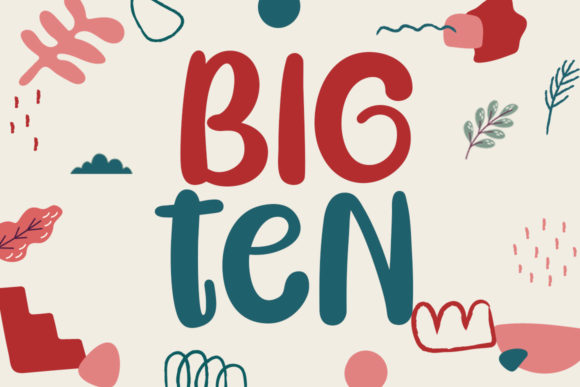
The Big Ten Font: A Fun and Friendly Display Font for Your Creative Projects
I’ll never forget the time I was working on a project for a client who needed a bold, eye-catching font to capture the essence of their brand. I had spent hours scouring the internet for the perfect font, but nothing seemed quite right. That was until I stumbled upon the Big Ten font. With its fun and friendly vibe, I knew I had found the one. In this article, I’ll share my experience with the Big Ten font, its features, and how to make the most of it in your creative projects.
A Personal Review of Big Ten
- ✨ Unique and playful design: Big Ten has a distinctive look that’s sure to make your projects stand out.
- ✅ Highly versatile: Whether you’re working on a logo, poster, or social media graphic, Big Ten can adapt to any topic or theme.
- 💡 Easy to read: Despite its bold and playful design, Big Ten remains surprisingly legible, even at smaller font sizes.
While Big Ten is an excellent font, it’s not without its quirks. For example:
- 🤔 Limited suitability for body text: Big Ten is primarily designed for display purposes, so it may not be the best choice for longer blocks of text.
- ⚠️ Some glyphs may not be suitable for professional or formal projects: Big Ten’s playful design may not be suitable for all types of projects, such as corporate branding or formal events.
The Backstory of Big Ten
The Big Ten font was designed with the goal of creating a fun and friendly display font that’s perfect for creative projects. The designer aimed to create a font that’s both playful and elegant, making it suitable for a wide range of applications.
Q: What type of projects is Big Ten best suited for?
A: Big Ten is perfect for creative projects that require a bold and eye-catching font, such as logos, posters, social media graphics, and more.